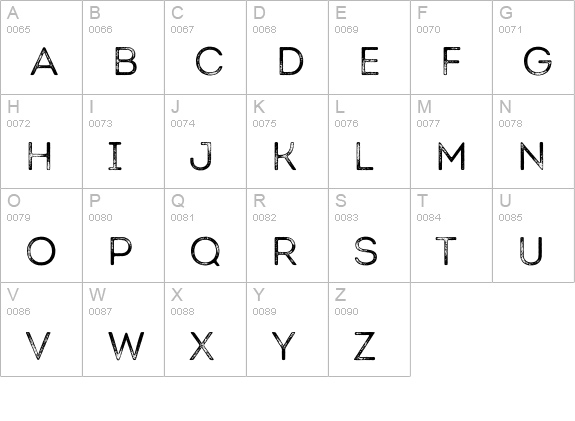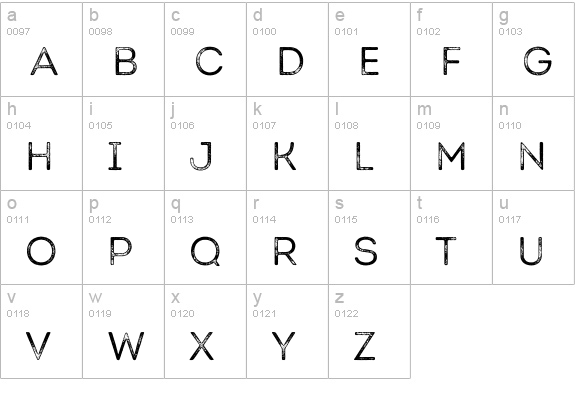
Intro Rust Book Base G Font Details
Intro Rust Book Base G is a comfortable, highly readable variant in the Intro typeface family \xE2\x80\x94 well suited to long-form body text, articles, and editorial content.
The Intro Rust Book Base G font is a stunning and versatile typeface that combines classic elegance with a modern twist. Its intricate details and unique design make it perfect for a wide range of projects, from branding to editorial design. The font exudes sophistication and style, making it a standout choice for those looking to make a statement with their typography. What's even better is that the Intro Rust Book Base G font is available for free download at FontsMarket.com. This means you can easily add this beautiful font to your collection without any cost. Don't miss out on the opportunity to enhance your designs with this exceptional typeface today!